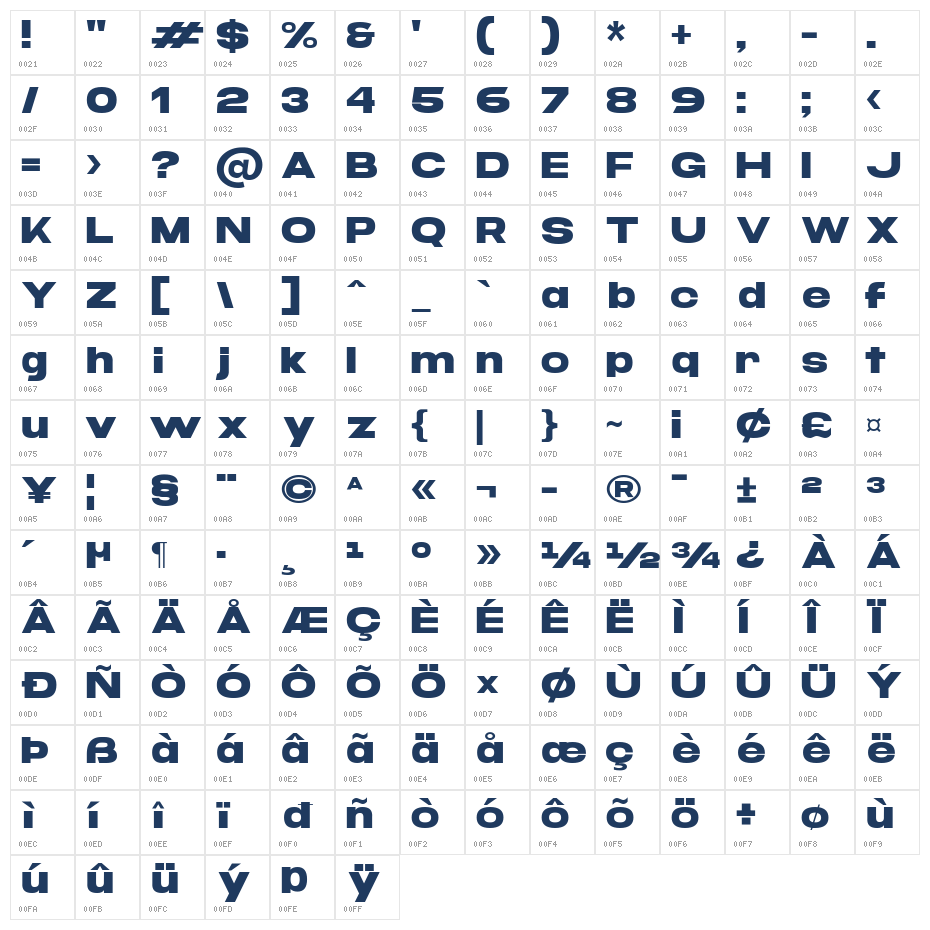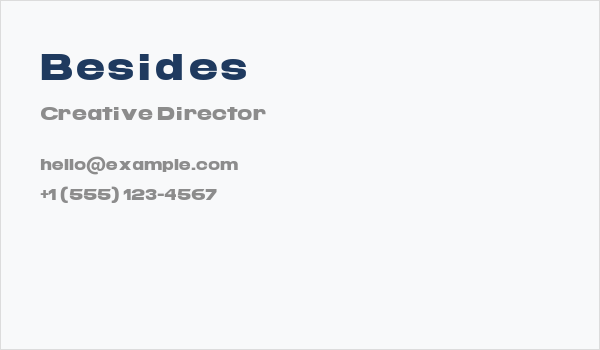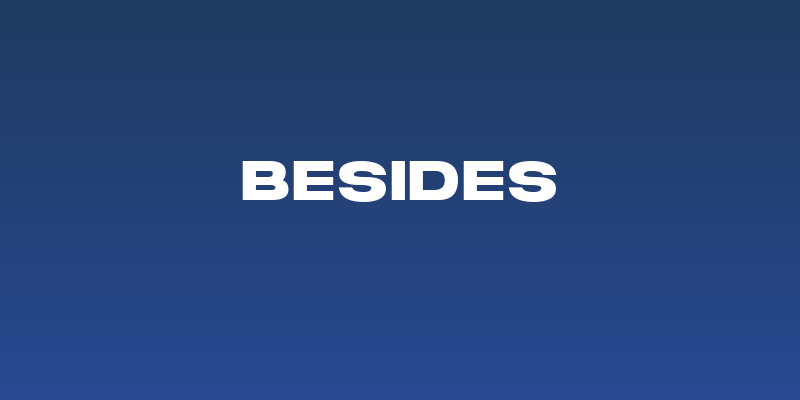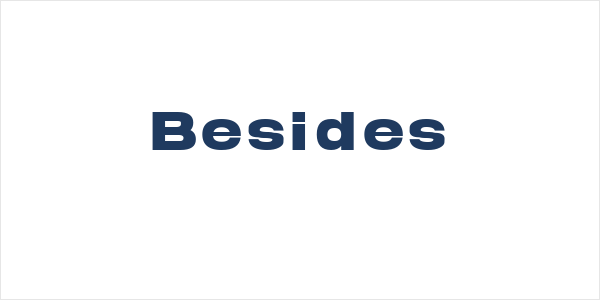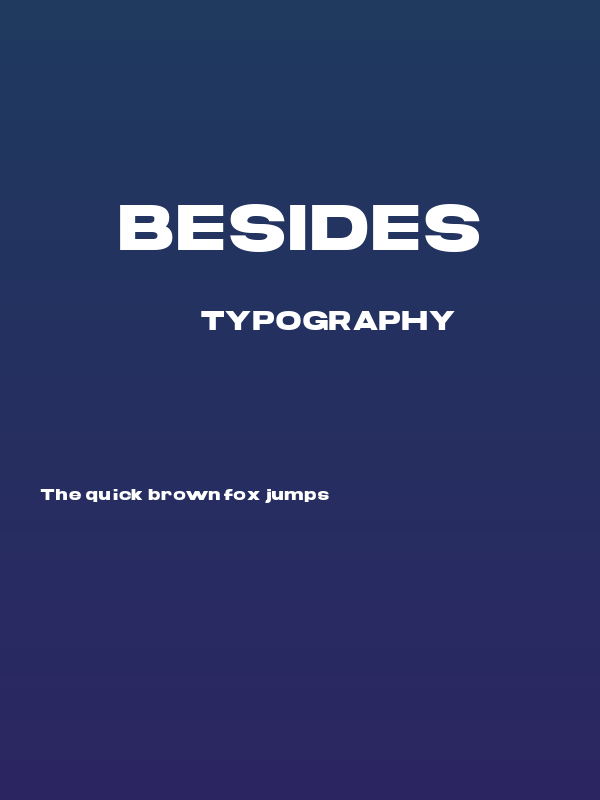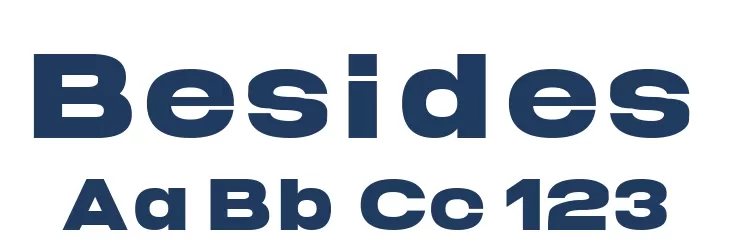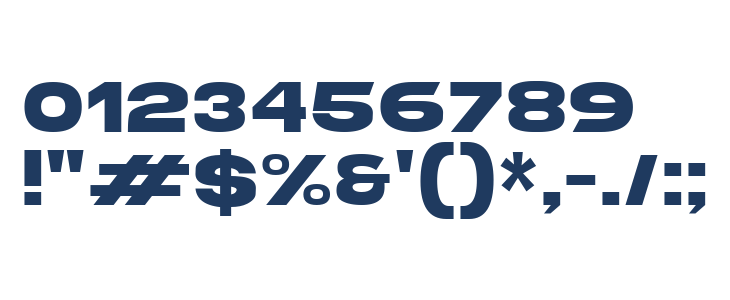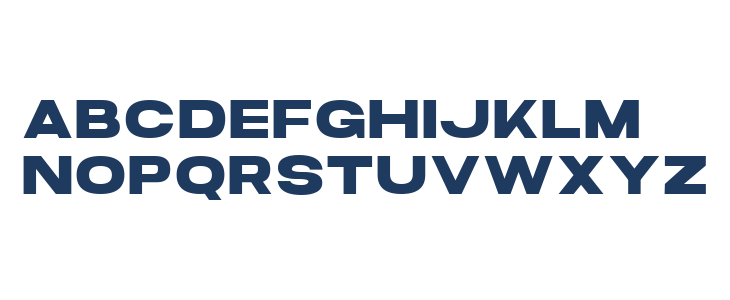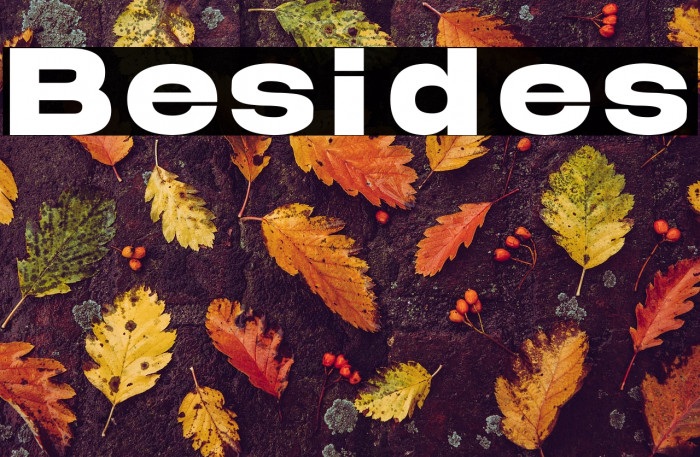
Besides Font
Besides Description
Bold, geometric sans-serif font with uniform stroke width and rounded edges.
Besides
BESIDES UPPERCASE
BESIDES LOWERCASE
BESIDES OTHER CHARS
| Overall Style | Modern, Geometric |